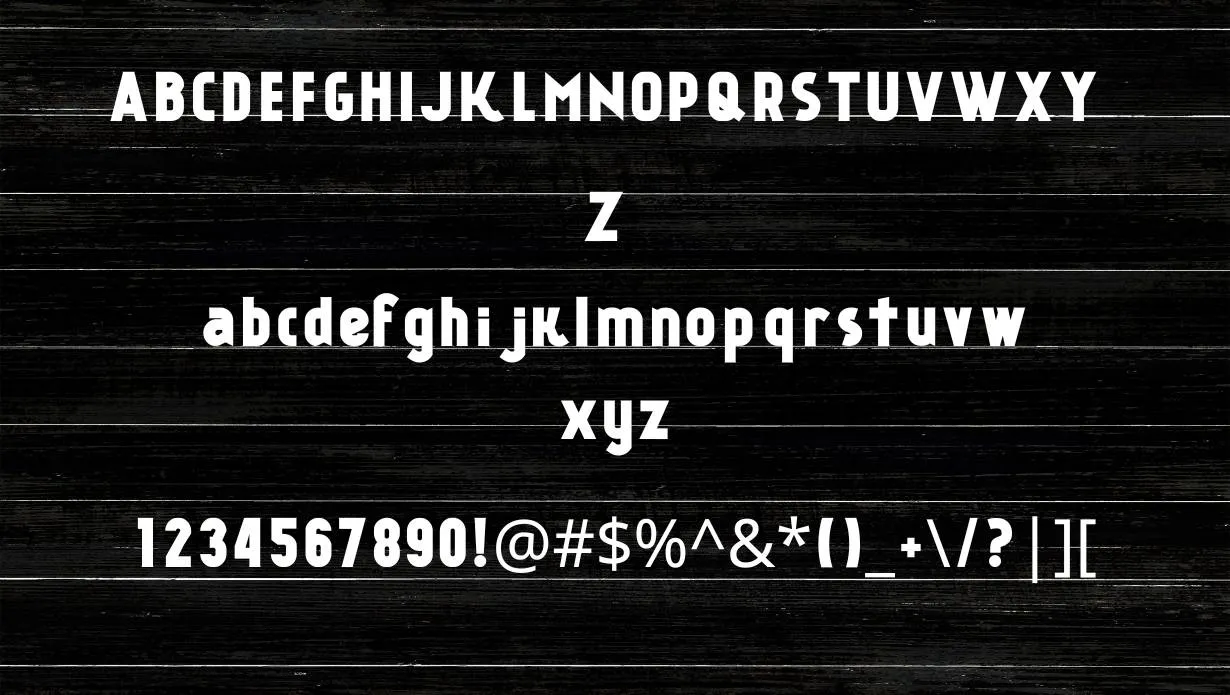
Kankin Font has a fun and whimsical feel, ideal for children’s books, colorful posters, and creative designs. It is compatible with file formats such as OTF and TTF, making it versatile for different design platforms.
| Name | Kankin Font |
| Designer | Alexey Frolov |
Its cheerful and creative style adds a touch of joy and imagination to any design, making it lively and full of character. Whether it’s a fun poster or a children’s book, Kankin Font adds a dash of playfulness to the text, captivating the audience with its vibrant energy.